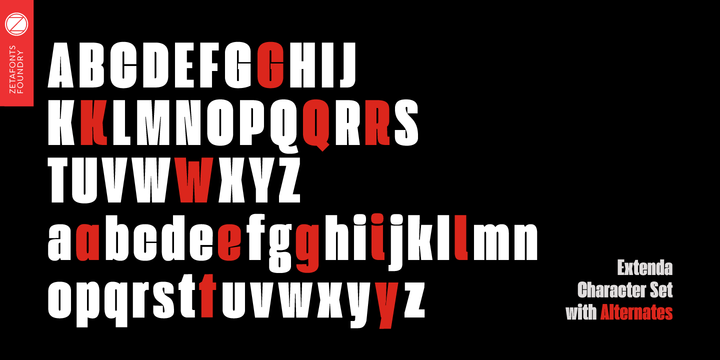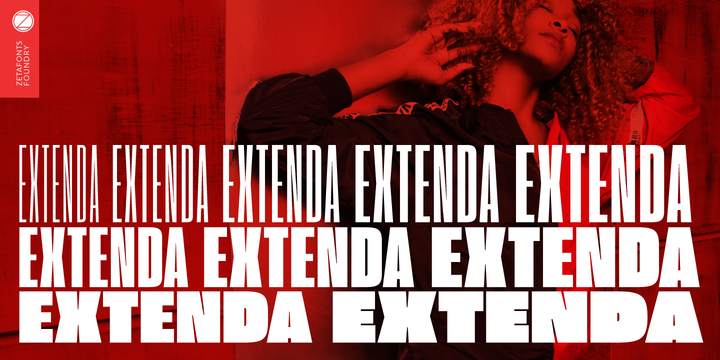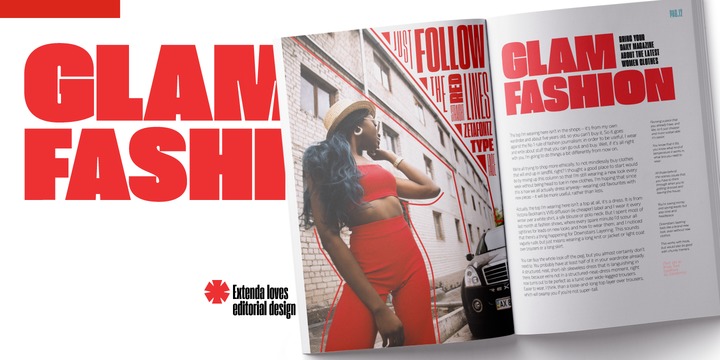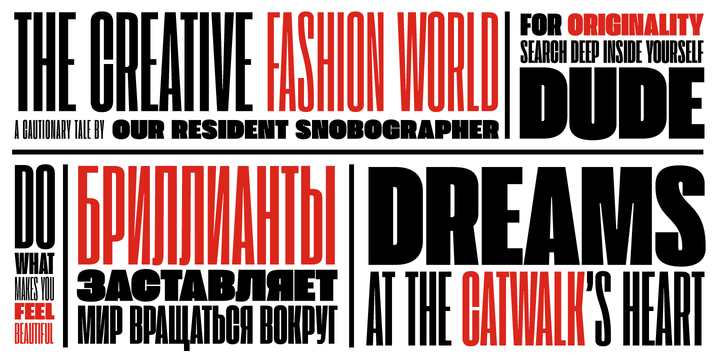
Extenda Font Family
About this font family
Extenda is a variable width sans serif type family designed by Francesco Canovaro with Andrea Tartarelli and Cosimo Lorenzo Pancini.It been created to provide designers with a powerful but flexible tool to create strong headlines, logos, and display text with tight spacing and maximum space coverage. Rather than providing a family of weights, it gives you a fine-grained range of widths to choose from, allowing maximum control in display editorial uses, and proportional size variation in logo design, keeping consistent appearance and readability